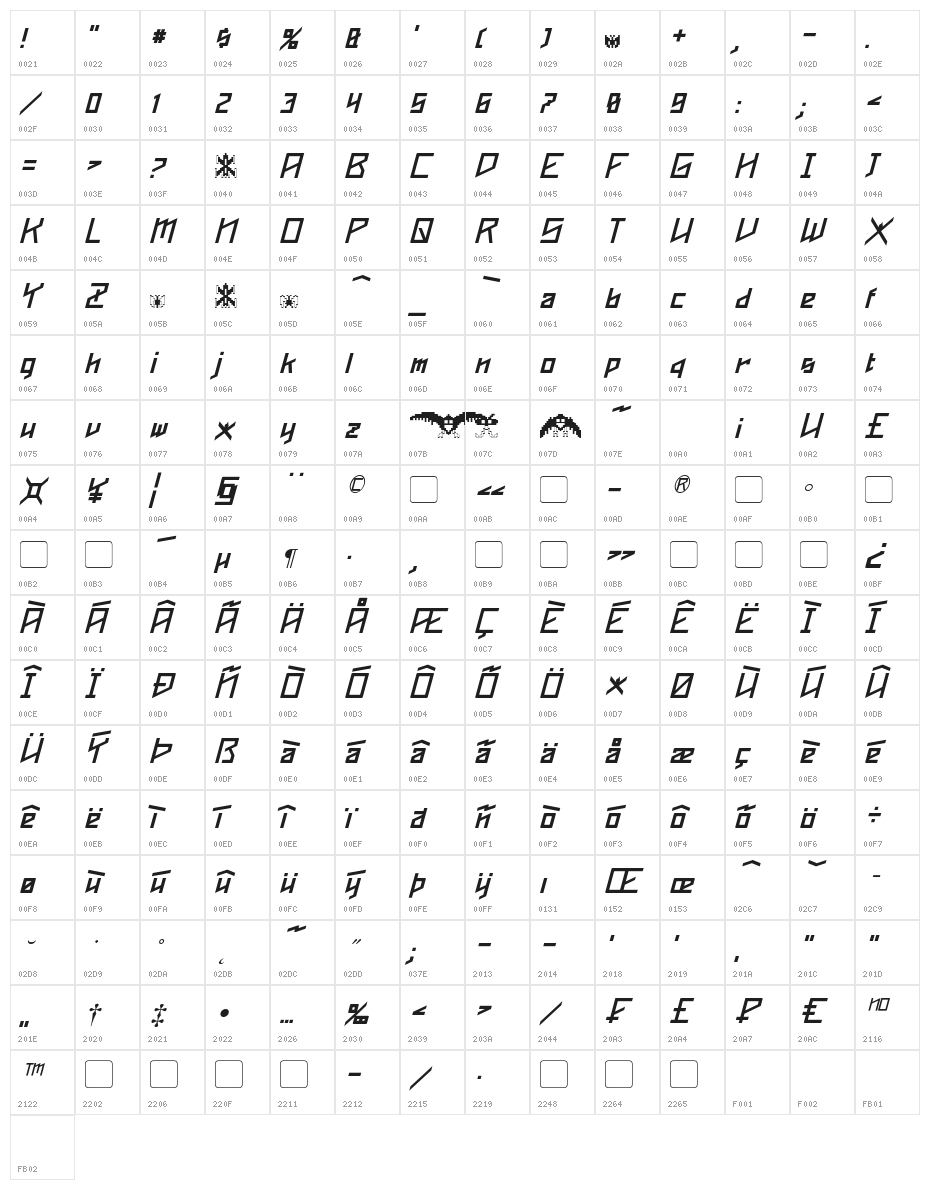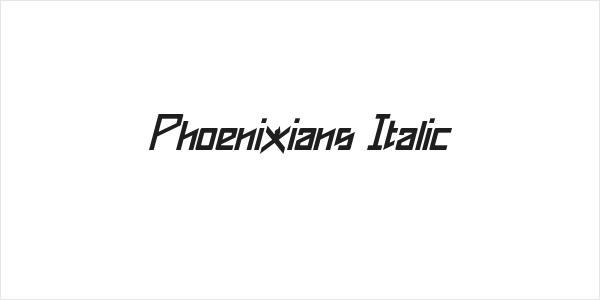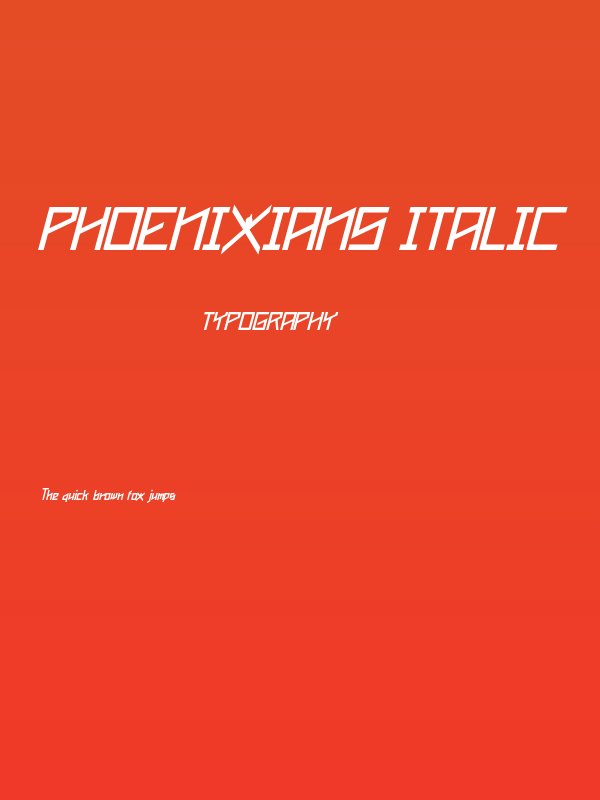
Phoenixians Italic Font
Phoenixians Italic Description
This font features a bold, angular design with a futuristic and dynamic appearance. The characters are sharply defined with a consistent slant, giving it an italicized look. The uppercase and lowercase letters maintain a uniform style, with the lowercase being slightly more compact. Numbers and special characters follow the same angular theme, ensuring a cohesive visual identity. The font's geometric shapes and sharp edges make it stand out, ideal for projects that require a modern and edgy aesthetic.
| Proposed Projects | Ideal for sci-fi themed designs, video game titles, tech branding, and modern posters. |